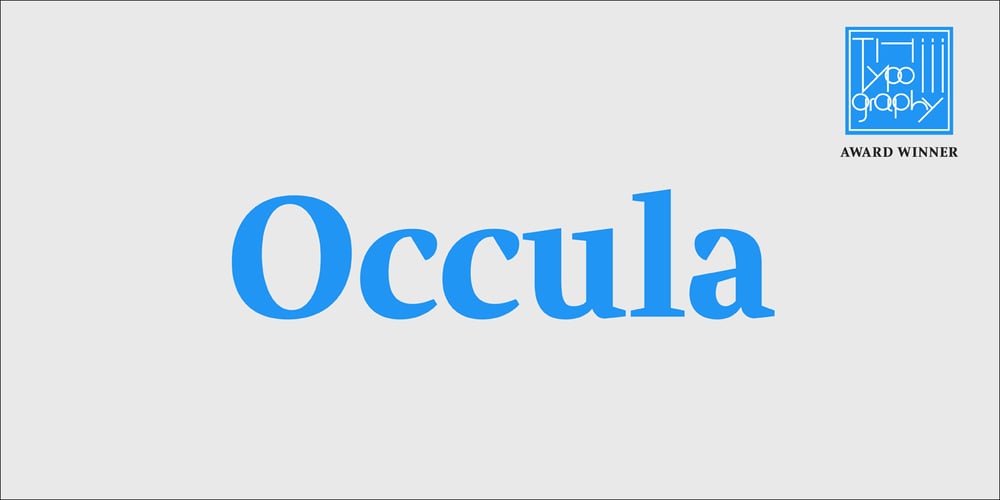
PF Occula
PF Occula font
PF Occula Font Family was designed by Lucas Brusquini and published by Parachute. PF Occula contains 4 styles and family package options. Occula on Behance. Occula: Specimen Manual PDF. Occula is an exploration into high-legibility type although it’s not an effort to design the ultimate typeface in terms of economy and legibility. Instead, the goal has been to strike a balance between modern curves and lively old-style rhythm – using a rational design approach without becoming monotone. Or from another point of view: being humanistic and lively without looking old-fashioned and quirky.